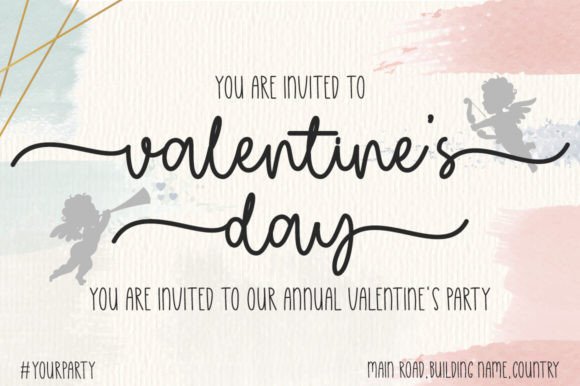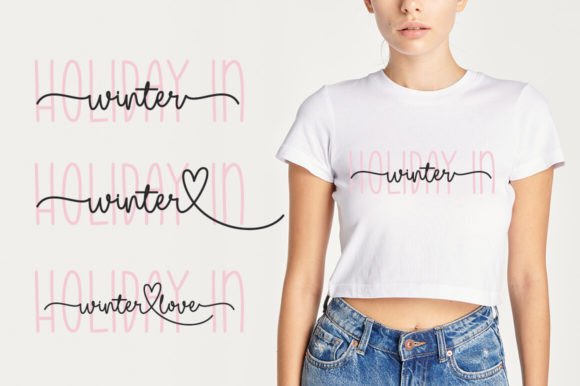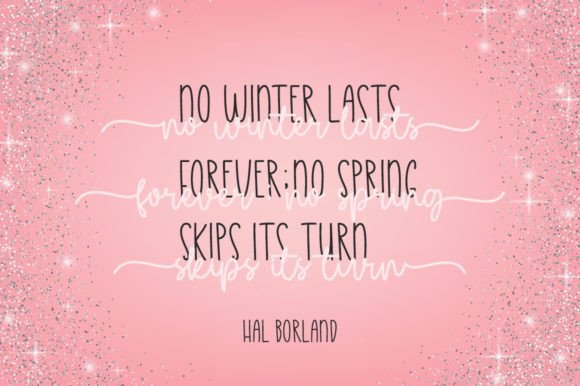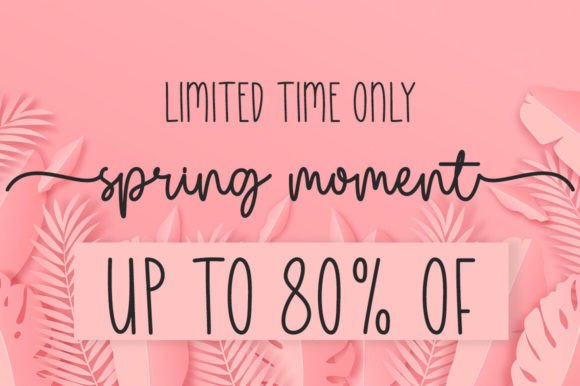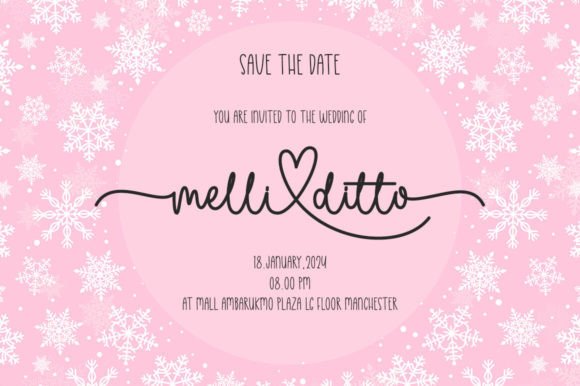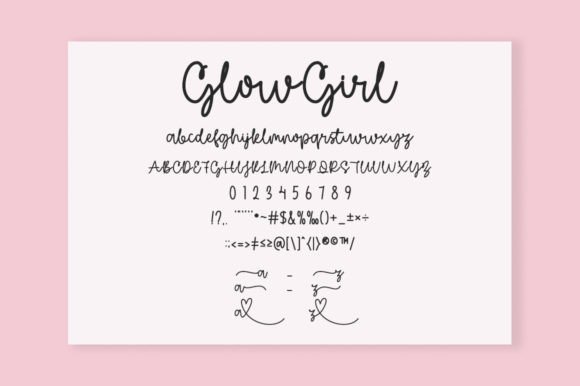
Introducing Glow Girl Font: Elevate Your Designs with Chic and Cheery Handwritten Style
Are you a designer or crafter looking for a unique and stylish font to add a personal touch to your projects? Look no further than Glow Girl Font, a beautiful handwritten font duo that’s perfect for creating eye-catching and cheerful designs. In this article, we’ll dive into the features and benefits of Glow Girl Font, and explore how it can elevate your crafts and designs.
What is Glow Girl Font?
Glow Girl Font is a carefully crafted font duo consisting of two complementary handwritten fonts. Designed to work together in harmony, these fonts can be used separately or in tandem to add a touch of elegance and whimsy to your designs. Whether you’re creating greeting cards, invitations, posters, or social media graphics, Glow Girl Font is the perfect choice for adding a chic and cheery vibe.
Key Features of Glow Girl Font
- Handwritten Style: Glow Girl Font boasts a beautiful, handwritten style that’s perfect for adding a personal touch to your designs.
- Complementary Fonts: The font duo consists of two carefully designed fonts that complement each other perfectly, allowing you to mix and match to create stunning combinations.
- PUA Encoded: Glow Girl Font is PUA (Private Use Area) encoded, making it easy to access all glyphs and swashes. This means you can easily insert special characters, ligatures, and ornaments to add extra flair to your designs.
Benefits of Using Glow Girl Font
So, why choose Glow Girl Font for your designs? Here are just a few benefits of using this amazing font duo:
- Adds a Personal Touch: Glow Girl Font’s handwritten style adds a warm and personal touch to your designs, making them stand out from the crowd.
- Versatile: The font duo is incredibly versatile, suitable for a wide range of design applications, from crafting and scrapbooking to graphic design and digital art.
- Easy to Use: With PUA encoding, accessing glyphs and swashes is a breeze, making it easy to get creative with your designs.
- Unique and Eye-Catching: Glow Girl Font’s unique style and charm will add a touch of magic to your designs, capturing the attention of your audience and setting you apart from the competition.
Tips for Using Glow Girl Font
To get the most out of Glow Girl Font, here are a few tips to keep in mind:
- Experiment with Pairings: Try pairing the two fonts together or using them separately to create different looks and styles.
- Play with Glyphs and Swashes: Take advantage of the PUA encoding to access glyphs and swashes, adding extra flair and personality to your designs.
- Mix and Match with Other Fonts: Don’t be afraid to combine Glow Girl Font with other fonts to create unique and eye-catching combinations.
Glow Girl Font is a stunning handwritten font duo that’s perfect for designers and crafters looking to add a touch of elegance and whimsy to their projects. With its PUA encoding, complementary fonts, and beautiful handwritten style, Glow Girl Font is the perfect choice for creating eye-catching and cheerful designs. Whether you’re a seasoned designer or just starting out, Glow Girl Font is sure to become a favorite in your font collection.